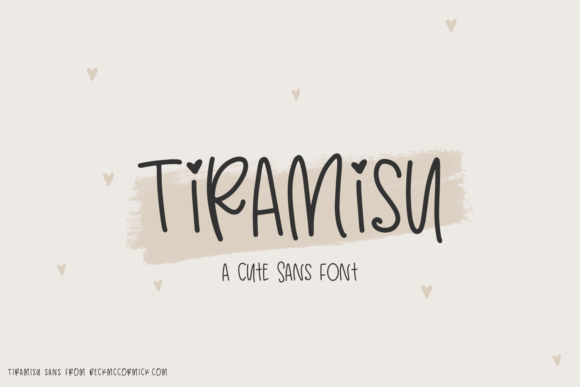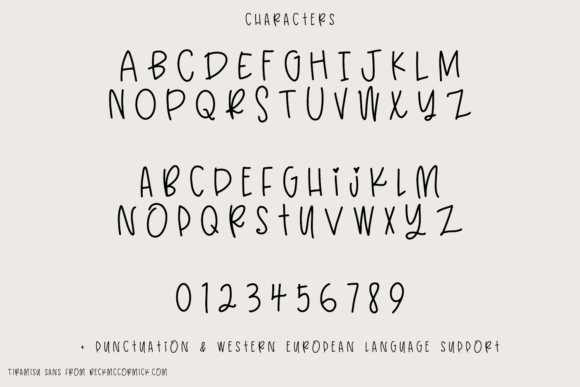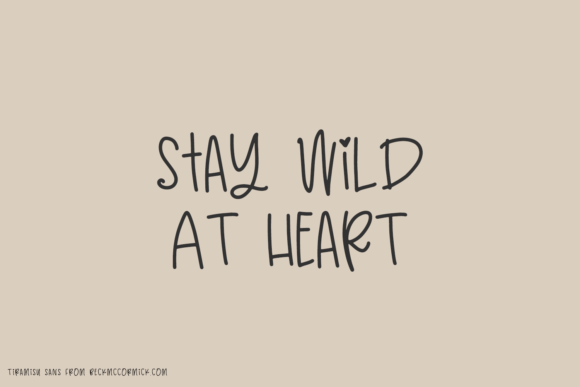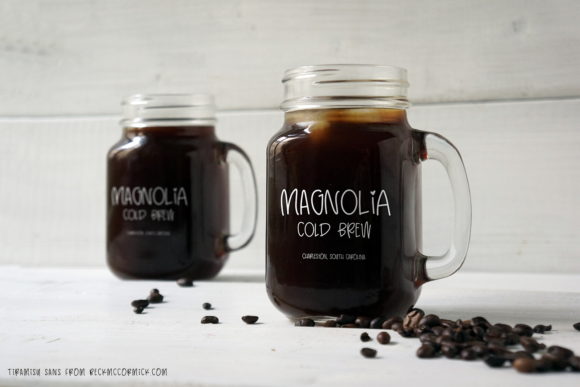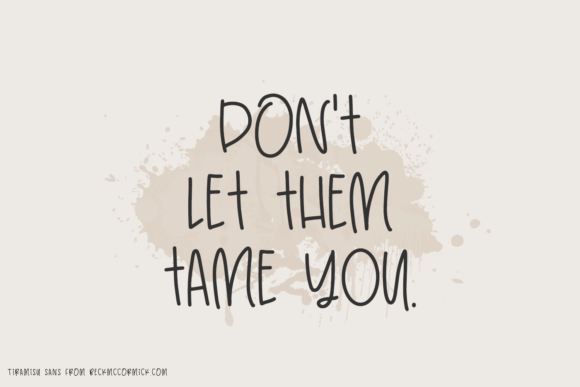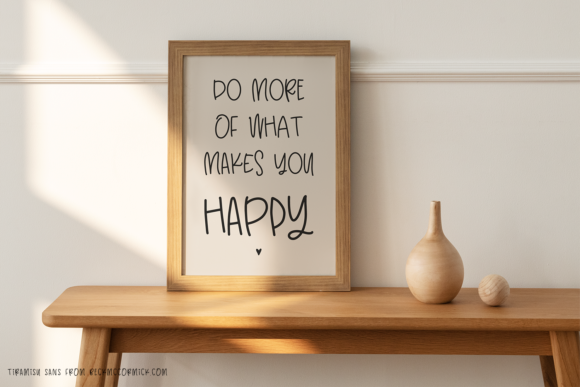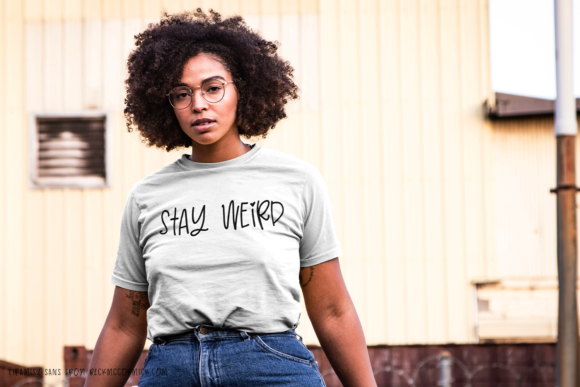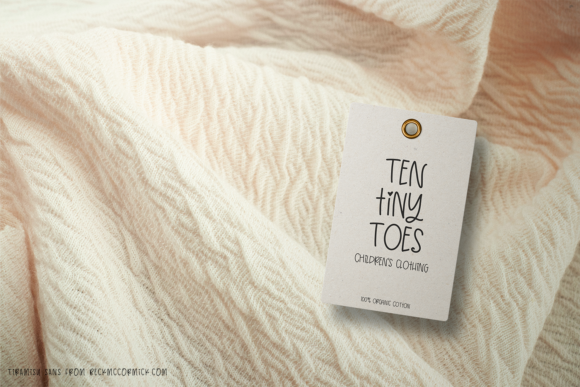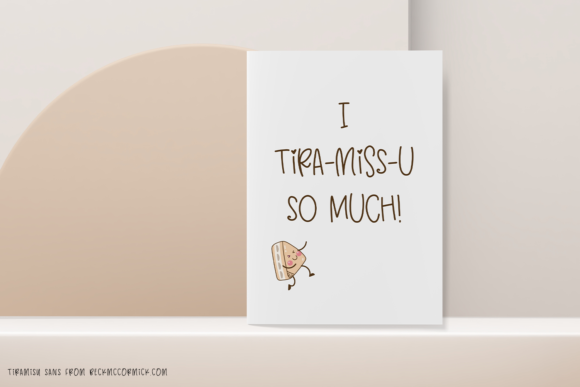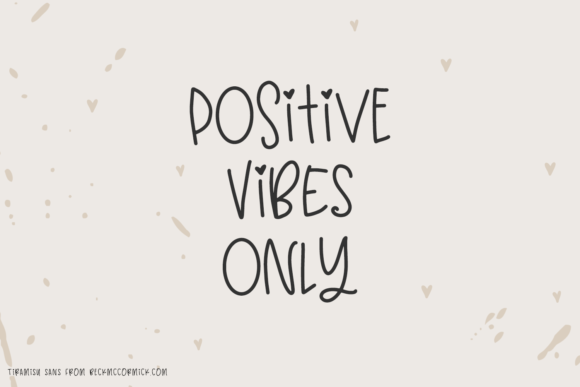
Tiramisu  Font
The “Tiramisu Font” embodies a perfect blend of charm and elegance. Its visual allure is captivating, making it a splendid choice for a variety of design applications. From the grace of wedding invitations to the heartfelt sentiment of thank you cards, the power of quotes, the warmth of greeting cards, the identity of logos, and the professionalism of business cards, this font seamlessly fits into a plethora of projects requiring a sophisticated handwritten touch.
Its adaptability shines through, enhancing the aesthetics of diverse design contexts. Whether you’re aiming for a romantic ambiance, a heartfelt expression, or a professional presentation, this font effortlessly aligns with your creative vision.
Adding to its appeal is the fact that “Tiramisu Font” is PUA encoded. This feature allows you to easily access a rich collection of glyphs and swashes, offering a multitude of creative opportunities. The inclusion of such details elevates the font’s versatility and makes customization a breeze.
In essence, “Tiramisu Font” harmoniously combines charm and elegance, rendering it a vital asset in any designer’s toolkit. Its adaptability and PUA encoding turn it into an indispensable tool for crafting visuals that radiate sophistication. With this font at your disposal, your projects don’t merely communicate; they emanate charm and elegance, leaving an indelible impression on those who engage with them.